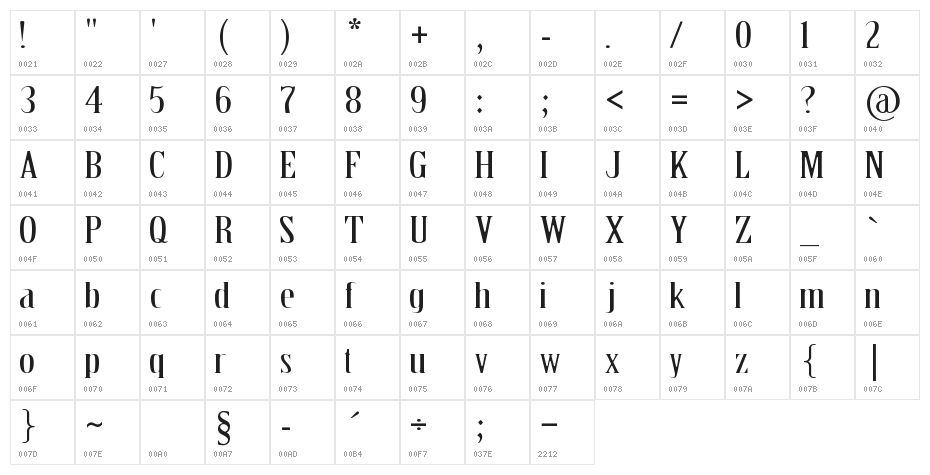
Thron Font
Thron Description
This font features a bold and elegant serif design, characterized by its high contrast between thick and thin strokes. The uppercase letters are tall and commanding, with sharp serifs that add a touch of sophistication. The lowercase letters maintain a consistent style, offering a harmonious blend of curves and angles. Numbers are designed with a similar flair, ensuring readability and style. Special characters are crafted with attention to detail, complementing the overall aesthetic. This font is ideal for projects that require a classic yet modern look.
| Proposed Projects | Ideal for branding, editorial design, book covers, and luxury product packaging. |